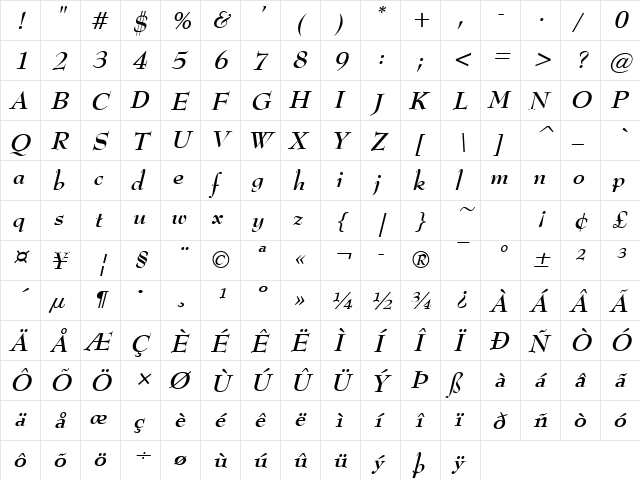
Top Hat Bold Italic
Design Context for Top Hat Typeface
Top Hat is a composed and adaptable typeface that performs quietly and consistently across a wide range of design contexts. Its italic angle brings a sense of urgency and motion to the letterforms. The heavy weight commands attention and anchors typographic hierarchies.
Pro Tip: Try Top Hat for annotation and caption copy alongside an upright companion — the contrast in angle creates a dynamic but ordered typographic system.